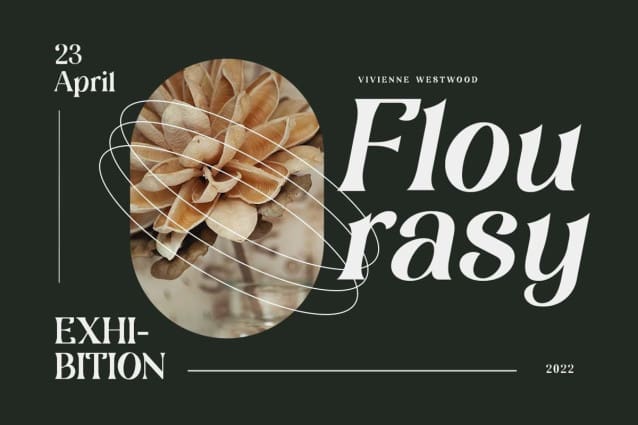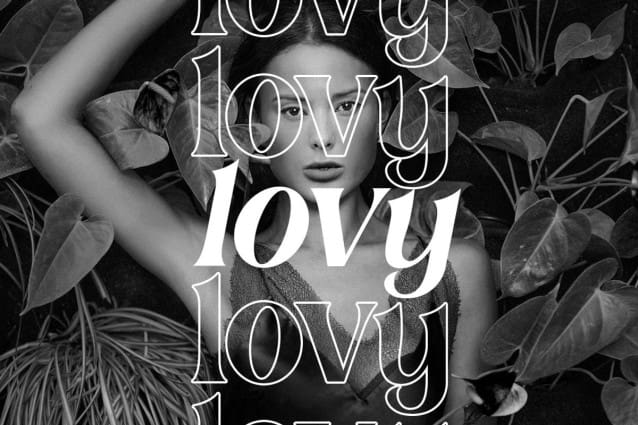
Carousel Chronicles Font
Carousel Chronicles Font – A beautiful, elegant and stylish classic serif font. This font is ideal for many projects such as signatures, stationery, logos, weddings, typographic quotes, magazine or book covers, website headers, branding, etc. Also suitable for branding related to fashion or editorial design that shows both masculine and feminine qualities.